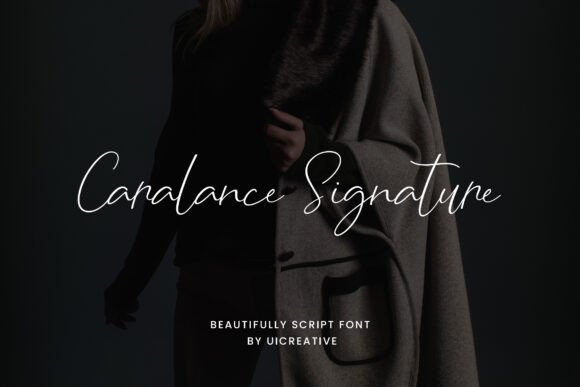
Unleash the Elegance with Caralance Signature Font
The moment you pick up a pen and start writing, the world becomes a canvas of endless possibilities. For designers, the thrill of creating something beautiful is what drives them to push the boundaries of creativity. Whether it’s a signature, a logo, or a typography quote, the right font can make all the difference in conveying a message or evoking an emotion.
Enter the Caralance Signature Font, a beautifully crafted script font that exudes elegance and sophistication. Designed to make a statement, this modern display font is perfect for a wide range of projects, from fashion-related branding to editorial design. With its ability to seamlessly blend masculine and feminine qualities, the Caralance Signature Font is a valuable addition to any designer’s toolkit.
- Font Family: A unique, hand-designed script font with a personal touch, ideal for creating elegant and sophisticated signatures.
- Font Size: Designed to be used at large sizes, typically ranging from 24pt to 72pt, to emphasize the elegance and sophistication of the font.
- Resolution: Optimized for high-resolution displays, making it suitable for use in digital applications, such as logos, business cards, and letterheads.
- Unique Characteristics: Features a flowing, cursive design with subtle flourishes and connections between letters, giving it a personal and handwritten feel.
Caralance Signature Font Review
As a designer, I’m always on the lookout for unique and versatile fonts that can elevate my projects. The Caralance Signature Font is a recent discovery that’s caught my attention.
- The font’s elegant script style is perfect for creating a luxurious feel in designs, making it ideal for wedding invitations, luxury branding, and more.
- The font is highly customizable, with multiple variations and ligatures that can be easily applied to create a more personalized look.
- The font is also quite legible, making it suitable for body text and longer paragraphs.
- The font may not be the best choice for digital displays, as it can appear slightly blurry or pixelated at smaller font sizes.
- The font is not optimized for bold or italic text, which may affect its overall readability.
Overall, the Caralance Signature Font is a solid addition to any designer’s toolkit. While it may have some limitations, its unique style and customization options make it a great choice for projects that require a touch of elegance and sophistication. With some careful planning and adjustment, I can see this font becoming a go-to for many designers.
Getting the Most Out of Caralance Signature Font
For optimal results, use Caralance Signature Font in conjunction with a high-quality image or background.
Caralance Signature Font is ideal for:
- Personal branding and logo design.
- Wedding invitations and event design.
Alternatives to Caralance Signature Font
Great Vibes is a modern script font that is ideal for creating elegant and sophisticated designs. It is perfect for use in titles, headings, and other elements where a touch of sophistication is desired. Great Vibes is more elegant and refined compared to Caralance Signature Font, which has a more playful and casual feel.
Alex Brush is a beautiful script font that is designed to evoke a sense of elegance and sophistication. It is perfect for use in high-end designs, such as luxury branding, advertising, and editorial content. Alex Brush is more formal and elegant compared to Caralance Signature Font, which has a more relaxed and casual feel.
What is the recommended font size for optimal readability with the Caralance Signature Font?
The recommended font size for optimal readability is between 12pt and 24pt, depending on the context and intended audience. At smaller sizes, the font may become difficult to read, while larger sizes may be unnecessary or visually overwhelming. Experiment with different font sizes to find the optimal balance for your project.